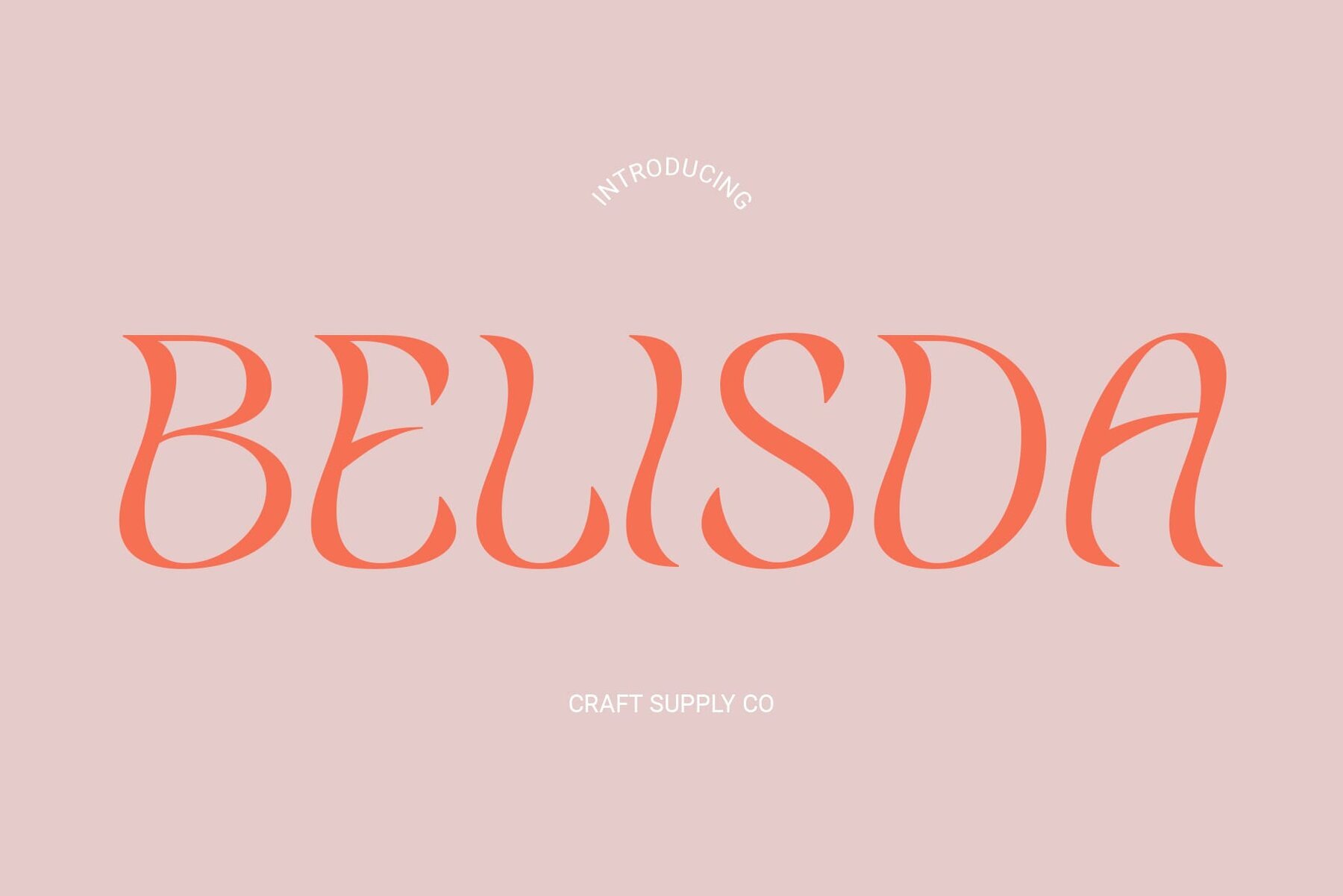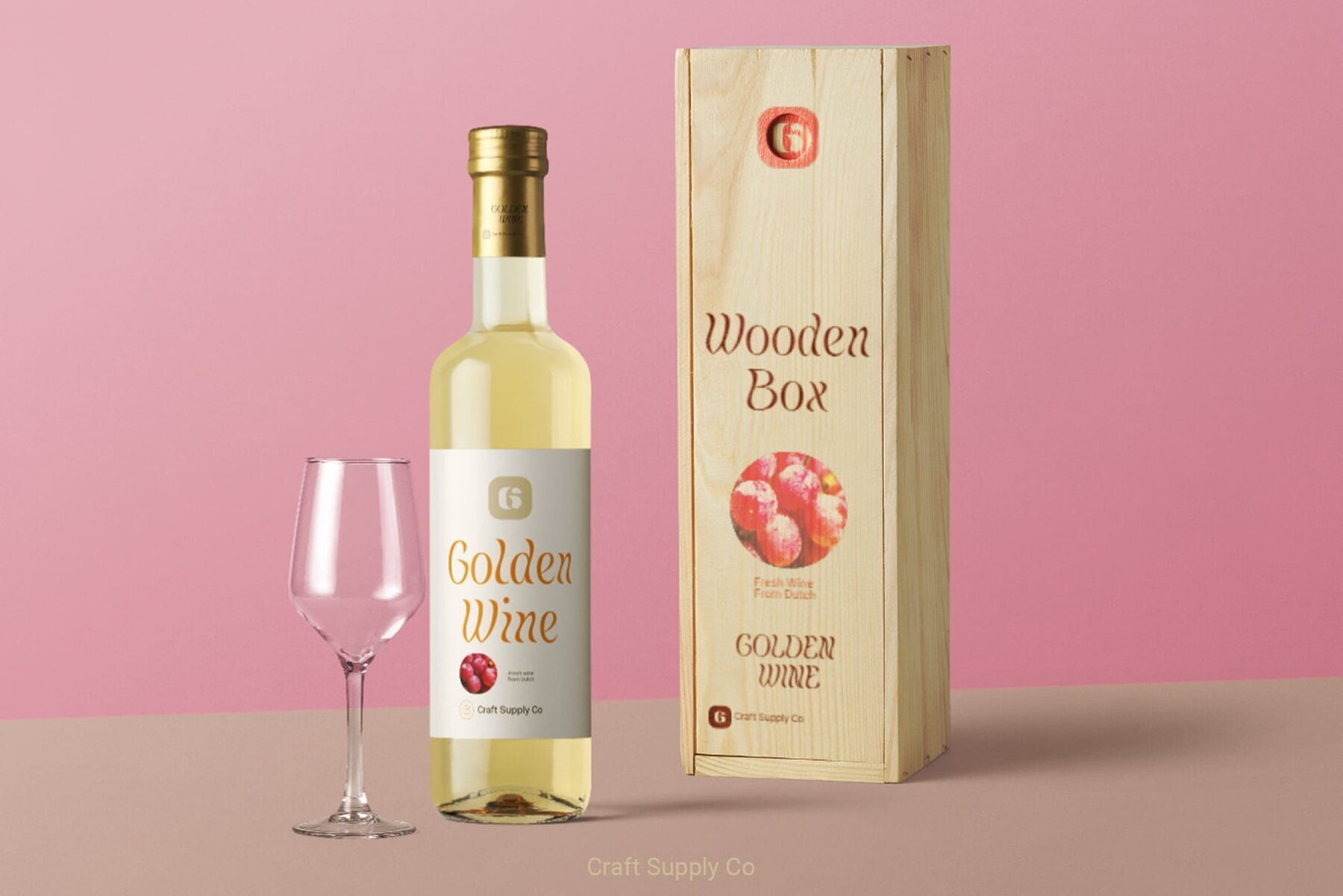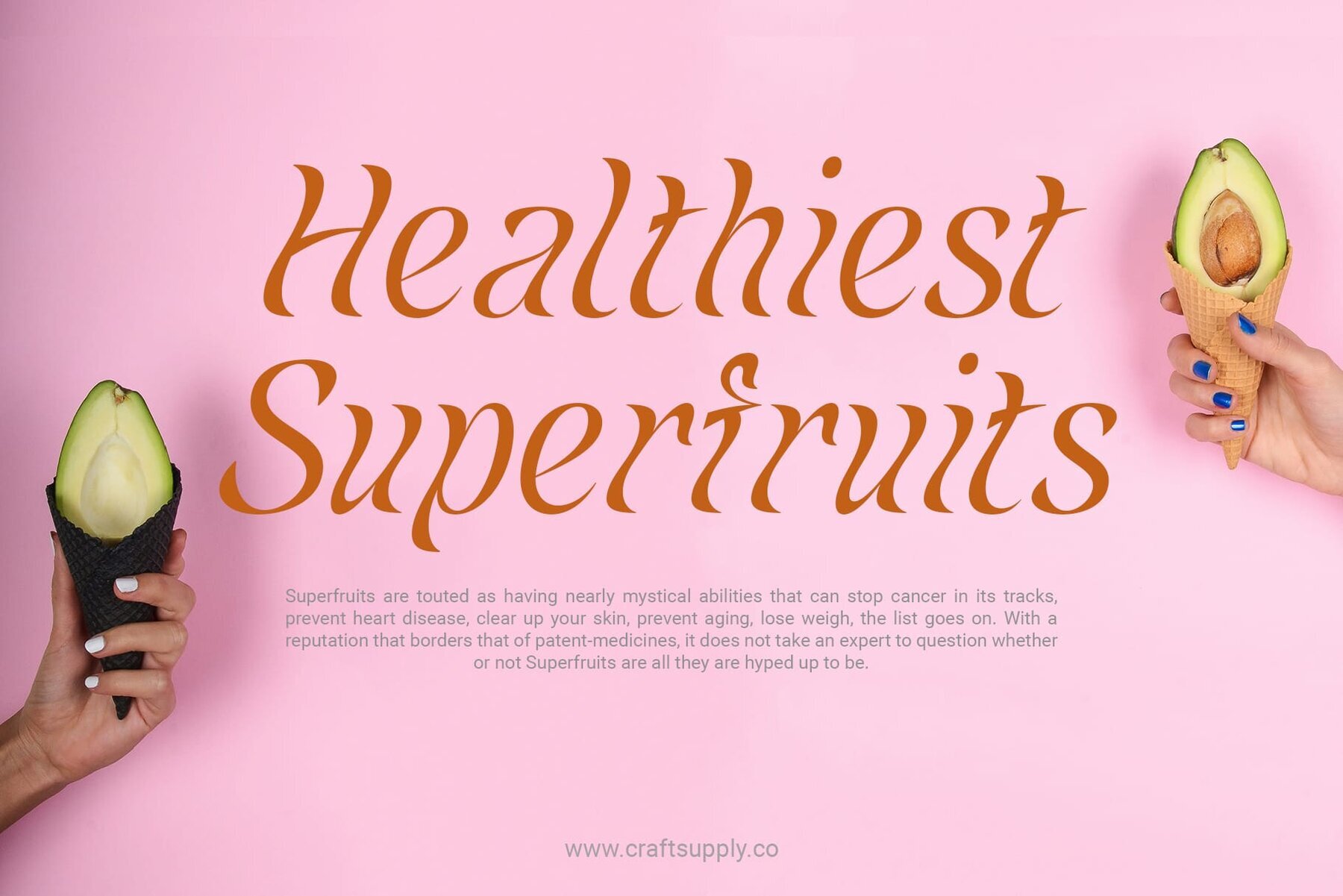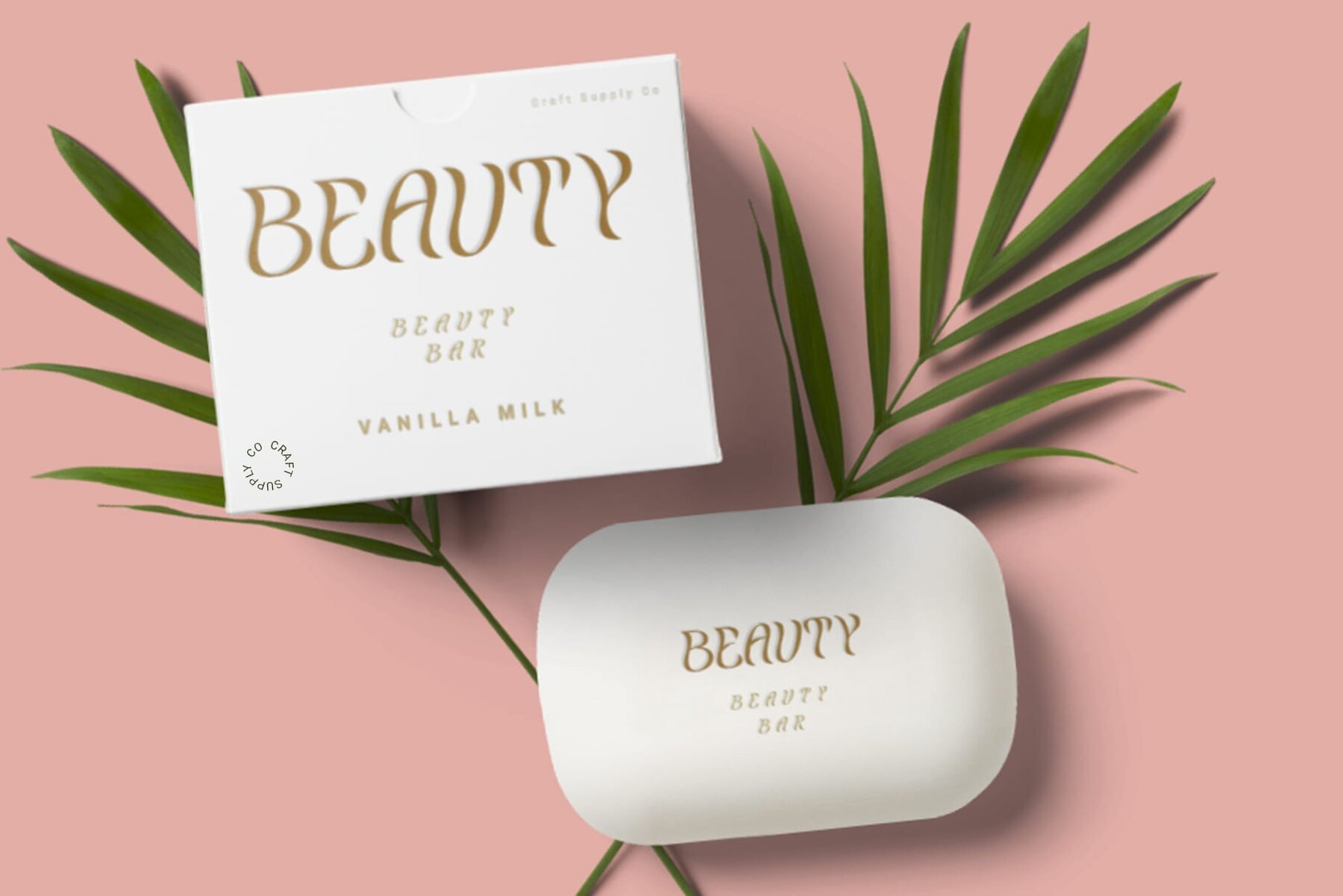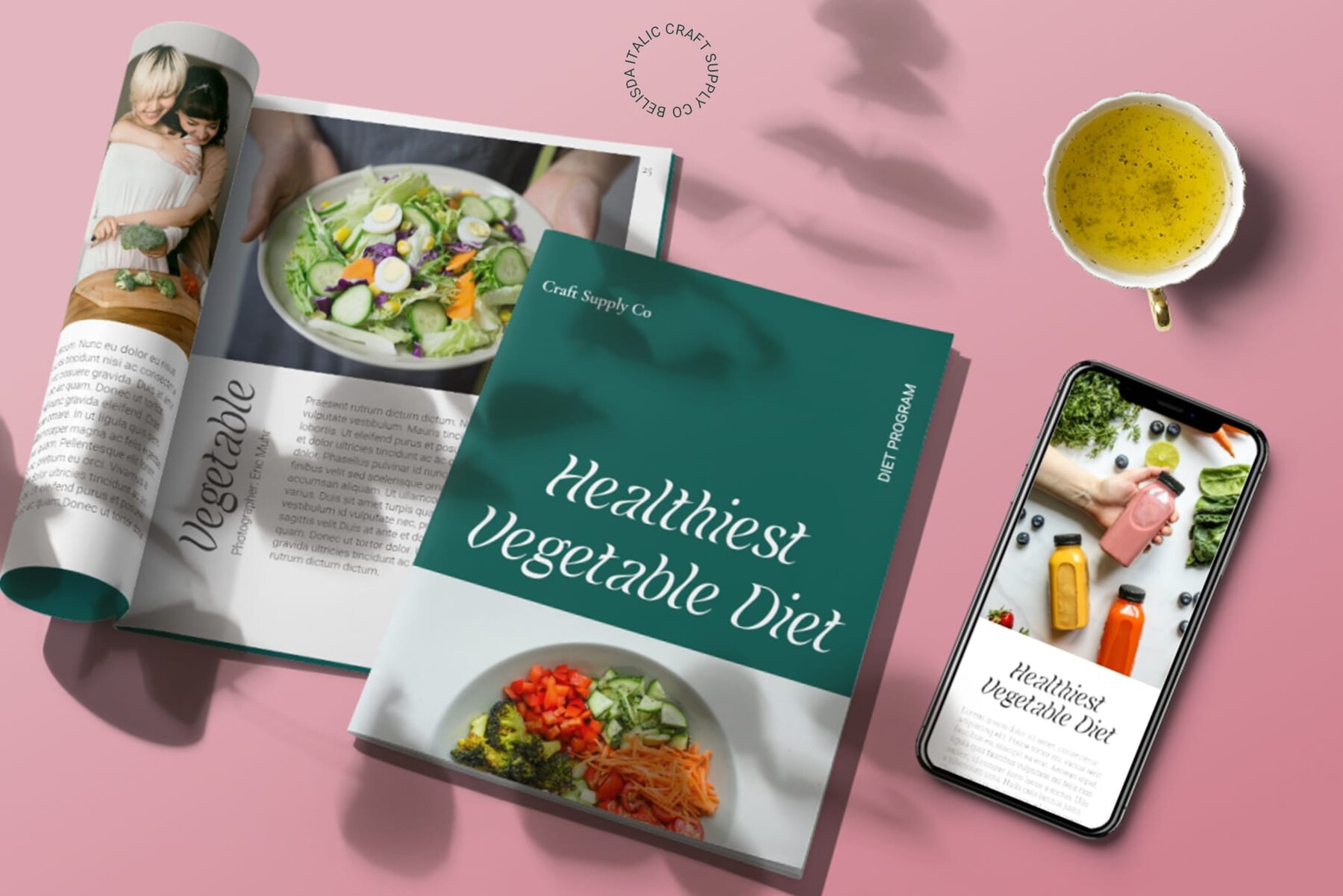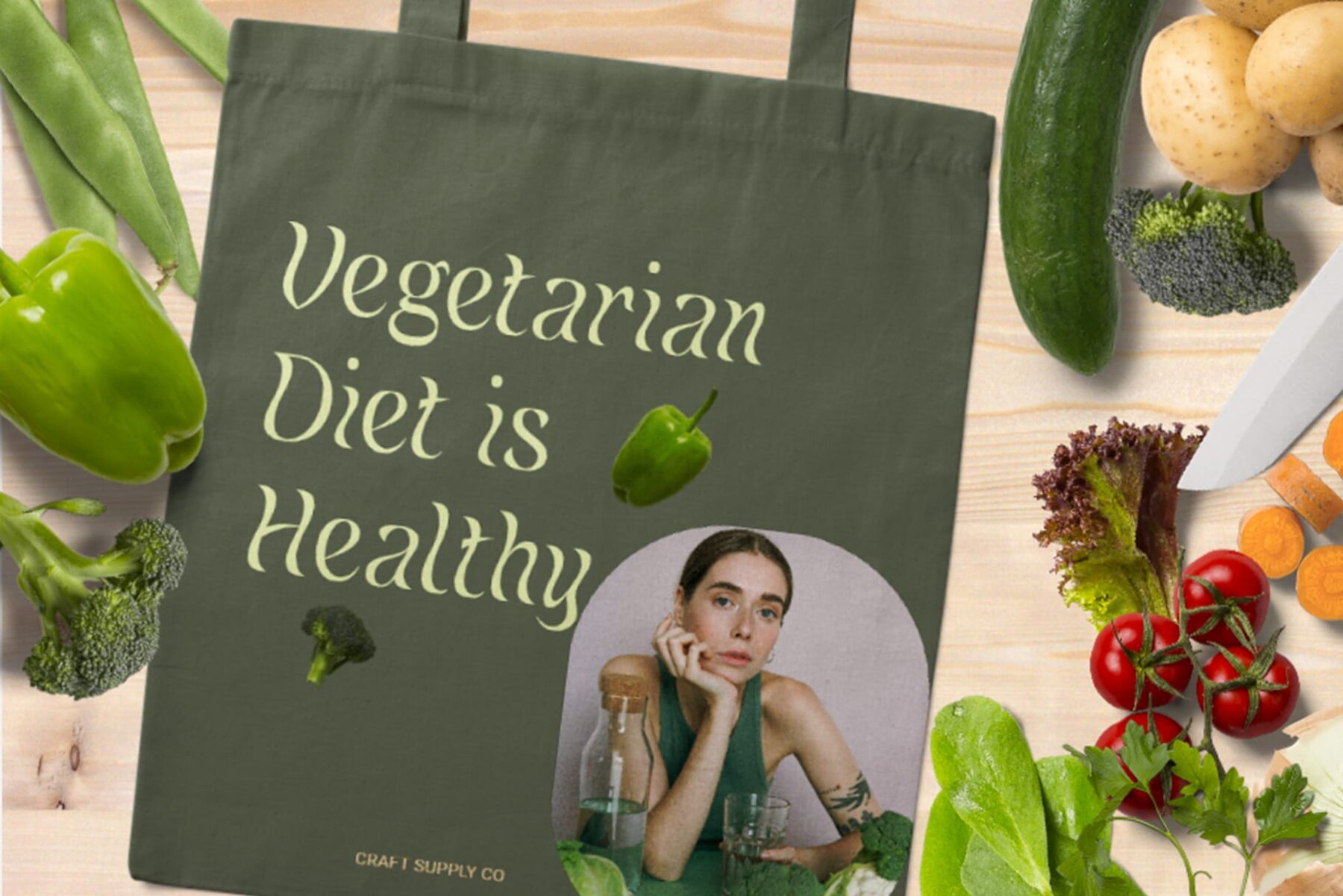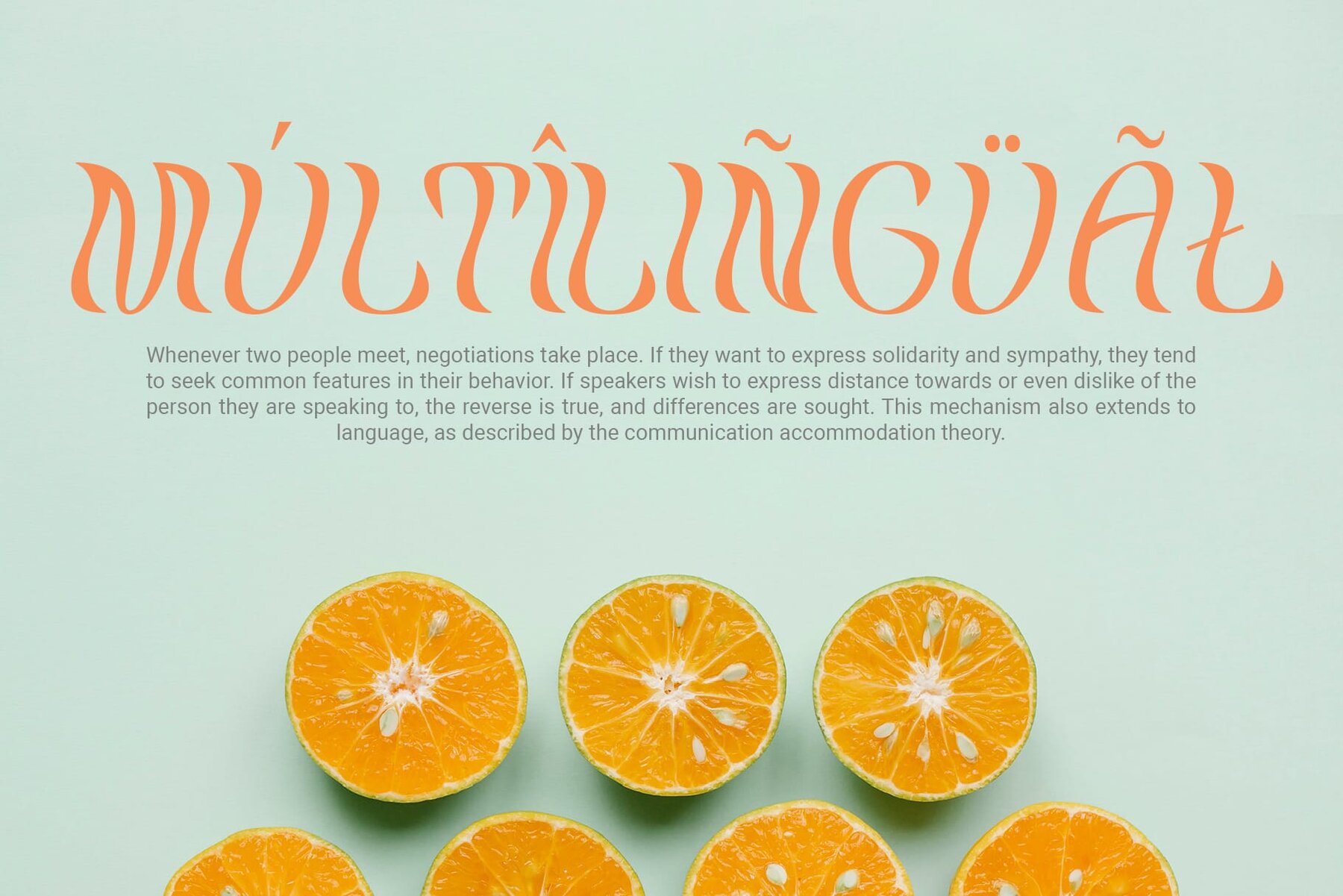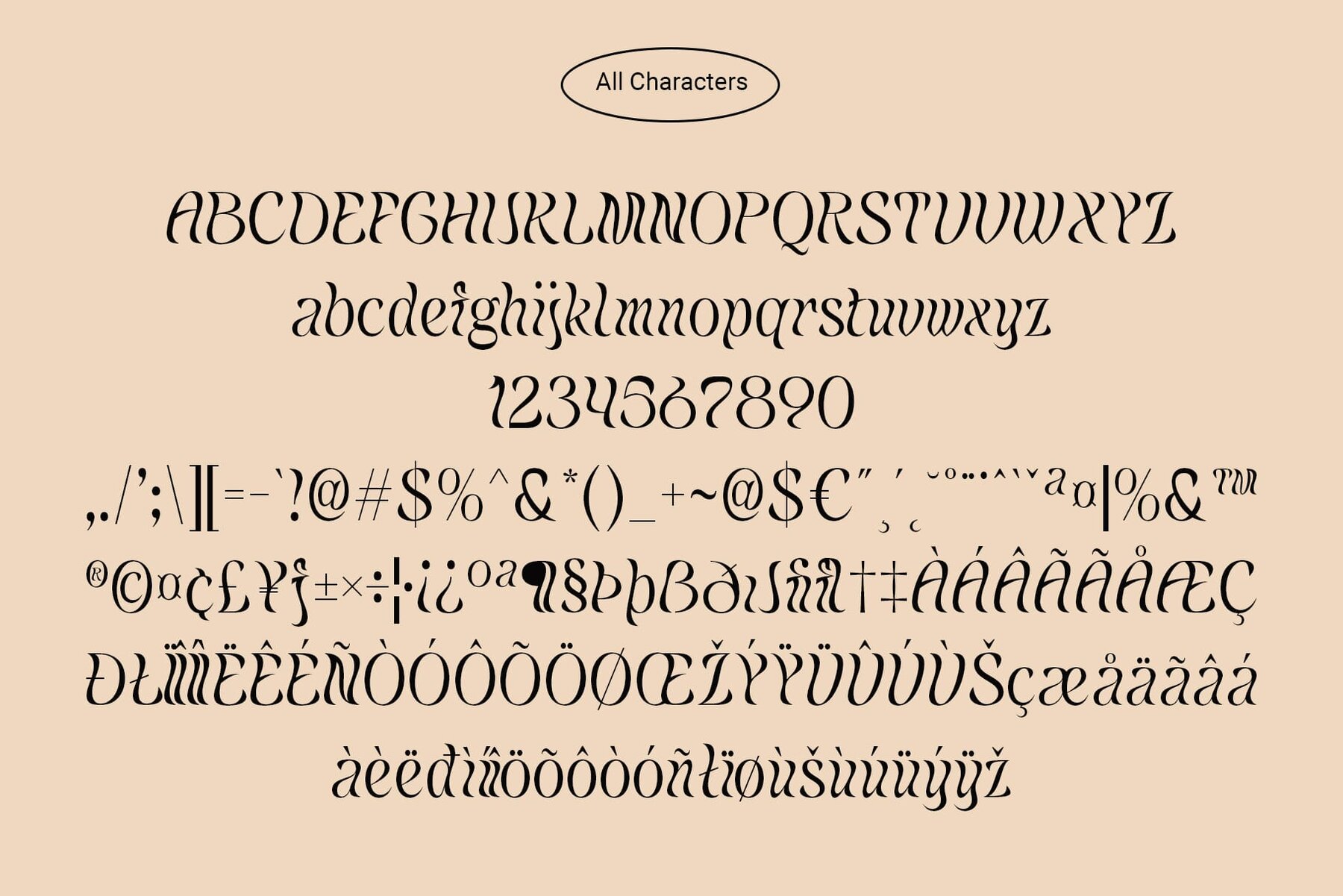
Belisda Font
Belisda offers a groundbreaking fusion of sans serif and script elements, crafting a visually striking and contemporary display typeface. Belisda breathes new life into traditional display typography with its dynamic visuals. This unique combination captivates the eye and engages the audience. The seamless integration of sans serif and script in Belisda creates a perfect harmony. It results in a font that is both modern and versatile, making it suitable for a wide range of design projects. From logos to posters, Belisda opens up endless possibilities for designers. It serves as a tool to express creativity and craft captivating visuals. No specialized software is needed to use this typeface. If you have any inquiries or need assistance, please feel free to contact us. We appreciate your support in enhancing your creative projects!Belisda: Redefining Display Typography
Innovative Design
Perfect Harmony in Typography
Versatile Creative Possibilities